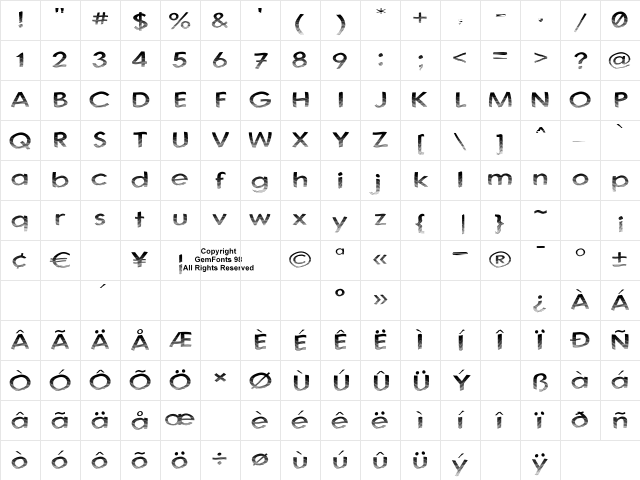
Australian Sunset Regular
Design Context for Australian Sunset
Australian Sunset is a composed and adaptable typeface that performs quietly and consistently across a wide range of design contexts.
Pro Tip: Use Australian Sunset in both headline and body roles to test its range before committing to a single application.